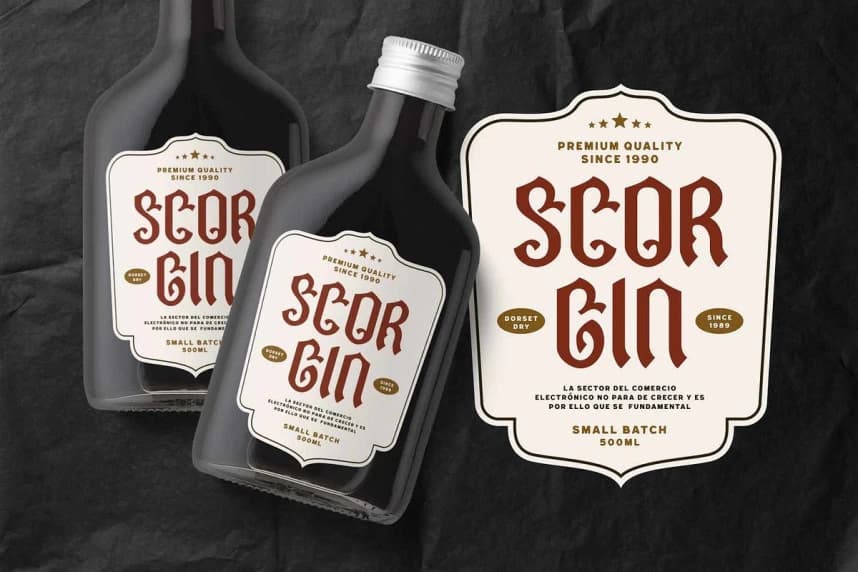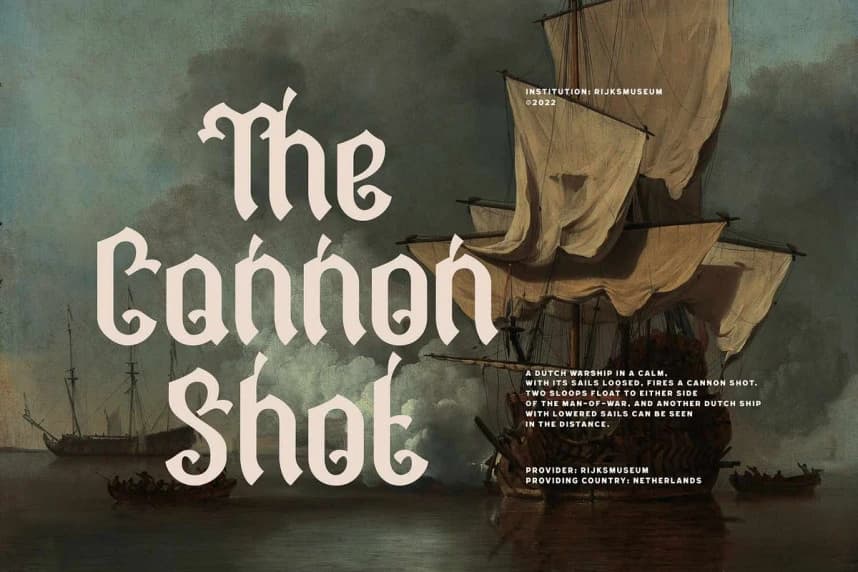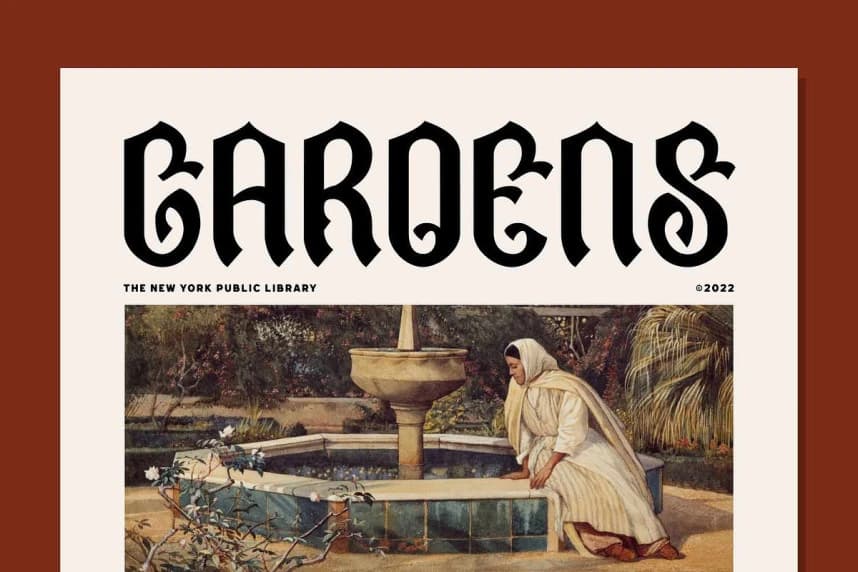
Kole Gemols Font
Kole Gemols font is a modern interpretation of traditional Blackletter, featuring thick and angular letterforms and ornate decorative details. This font combines historic Gothic style with a contemporary touch, showcasing consistent stroke thickness that enhances readability while maintaining the dramatic feel of medieval script.